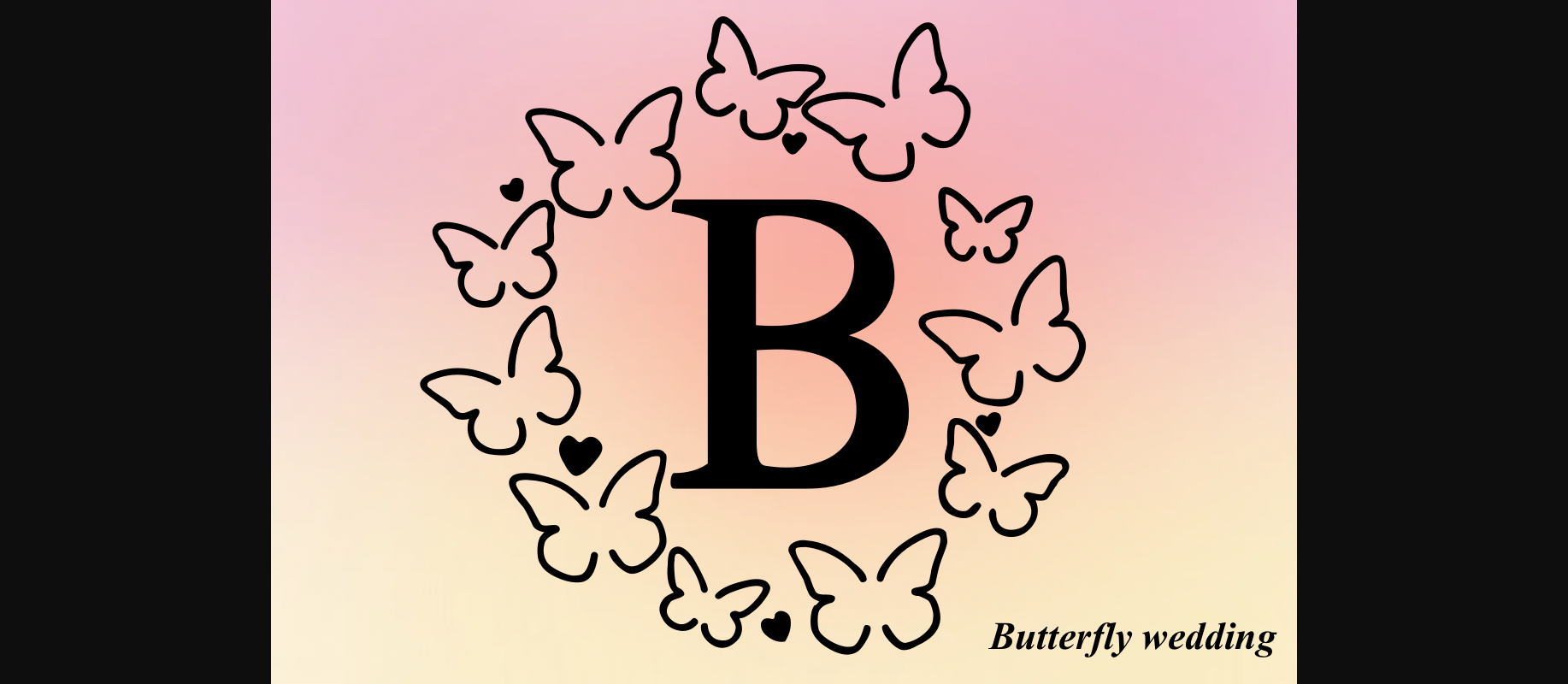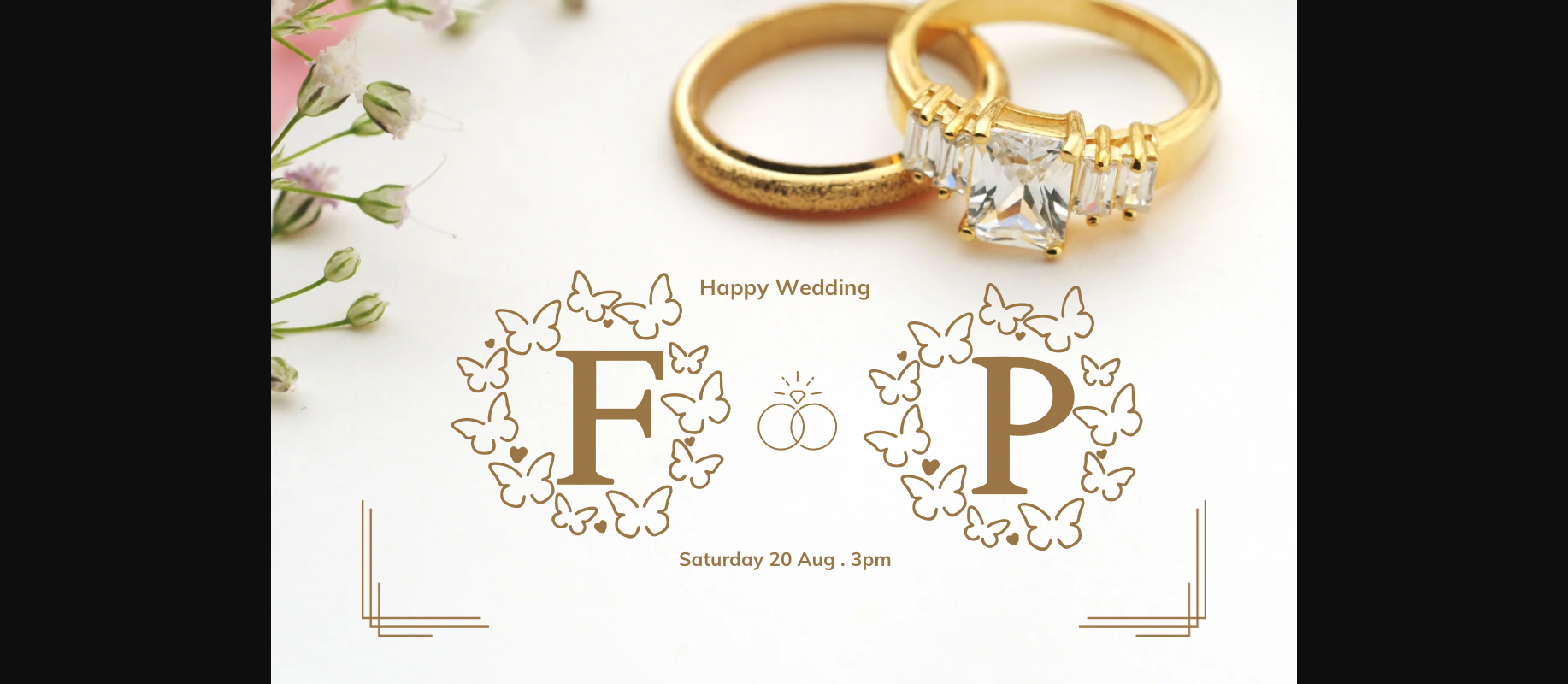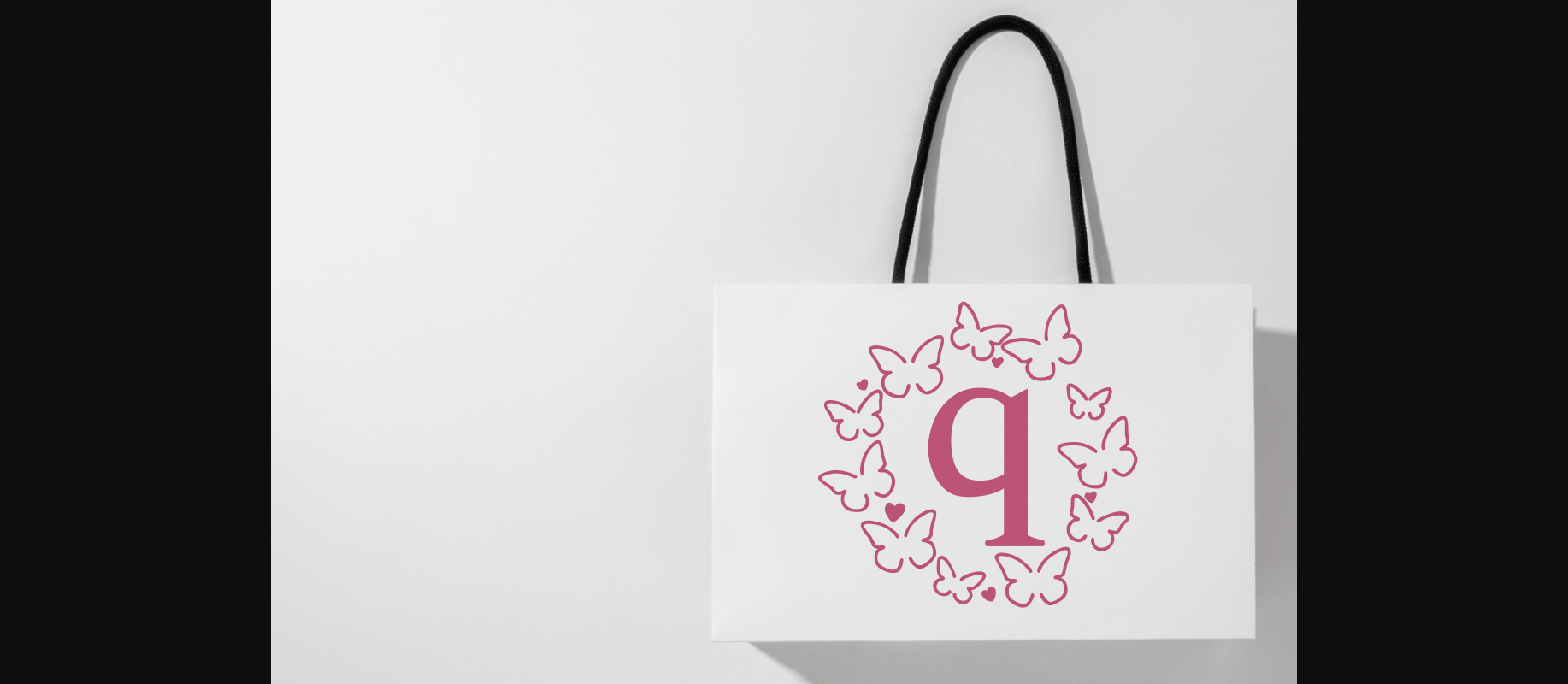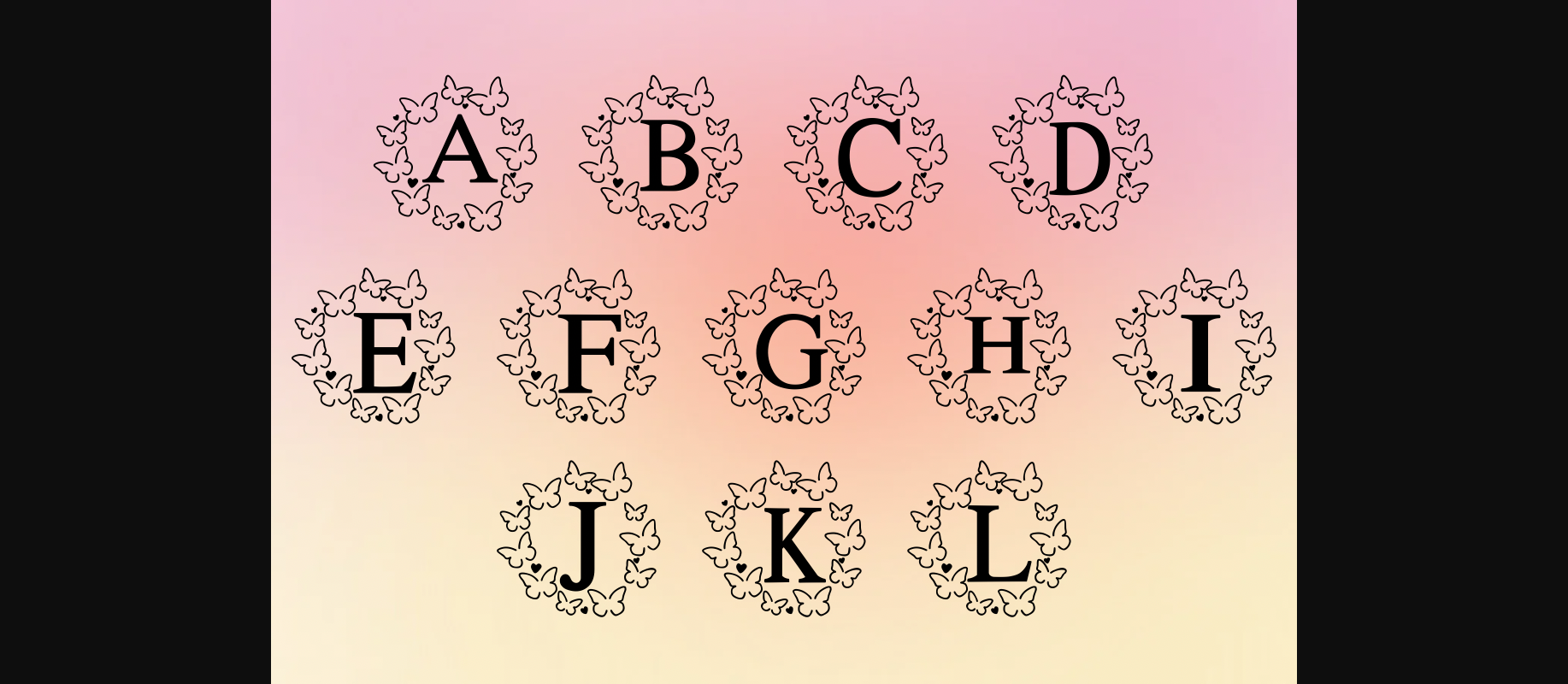
About Butterfly Wedding Font
Butterfly wedding is a decorative font with quirky elements. You can use it for taking notes, writing a diary or making greeting cards. However you can still use it for other designs such as banners content mugs cards shirts stationery social media posts and more!